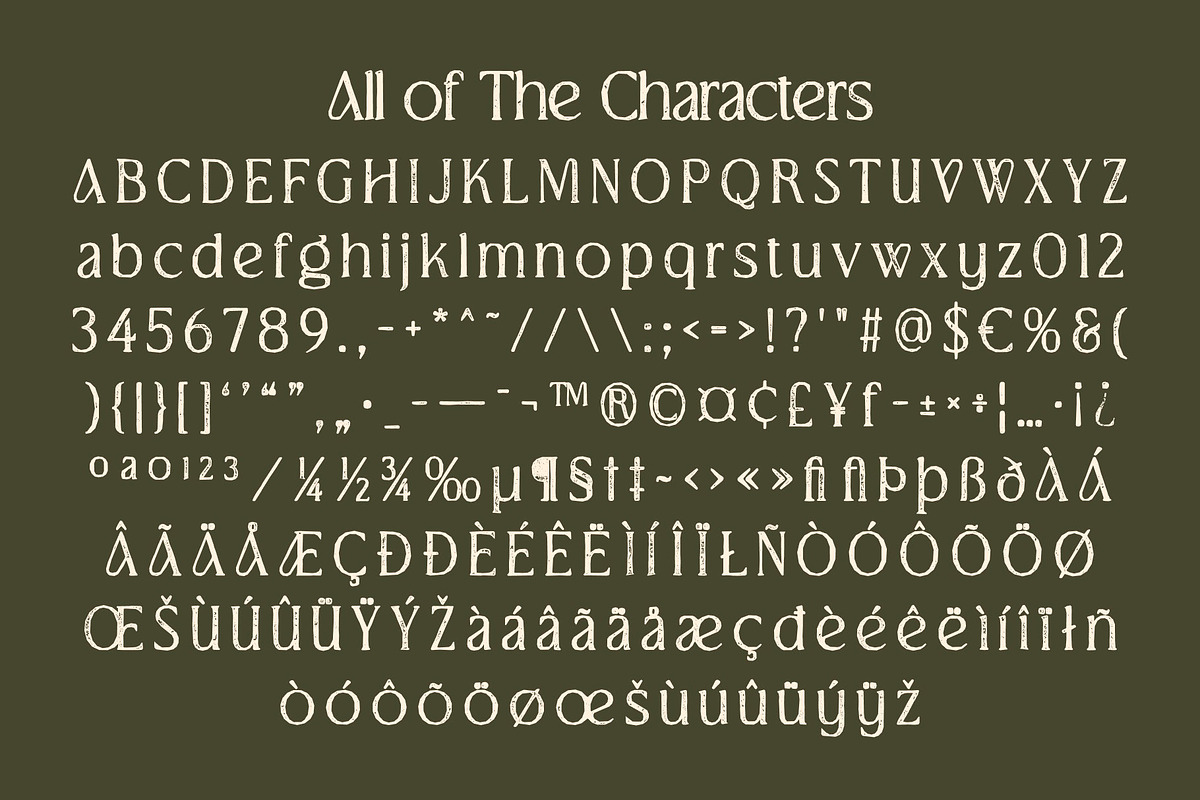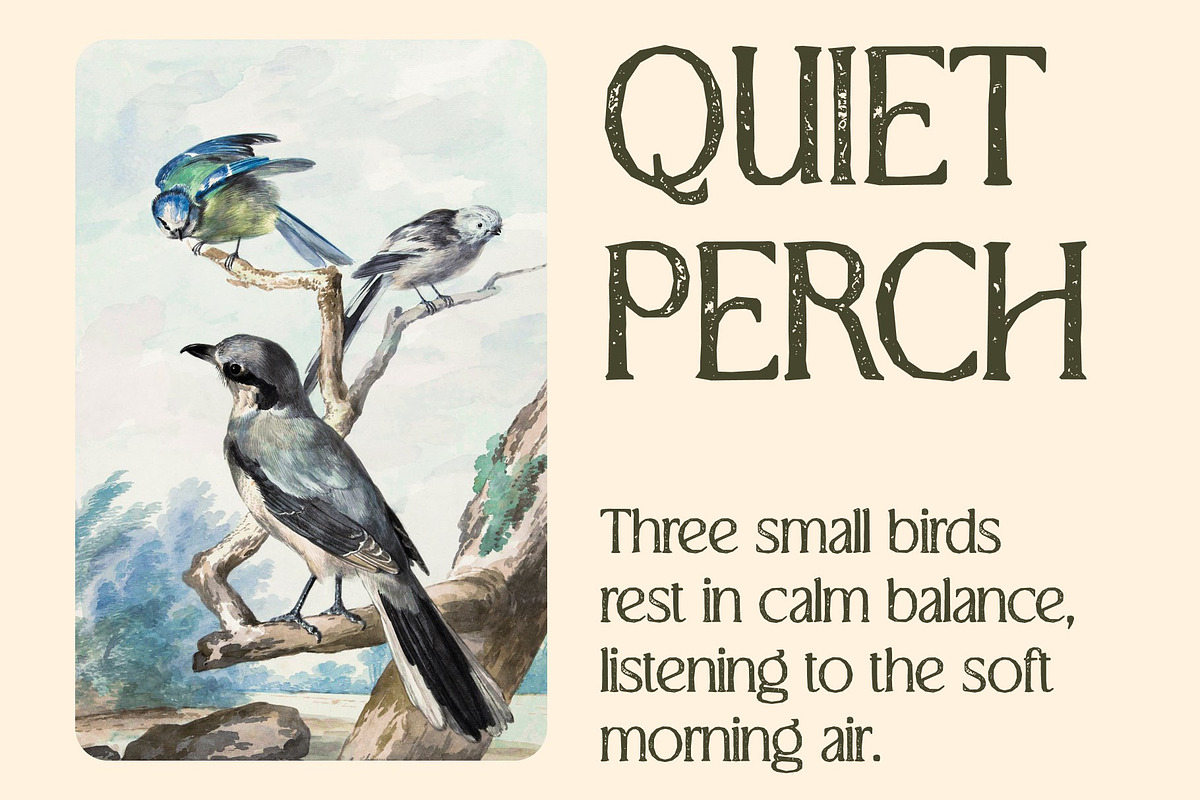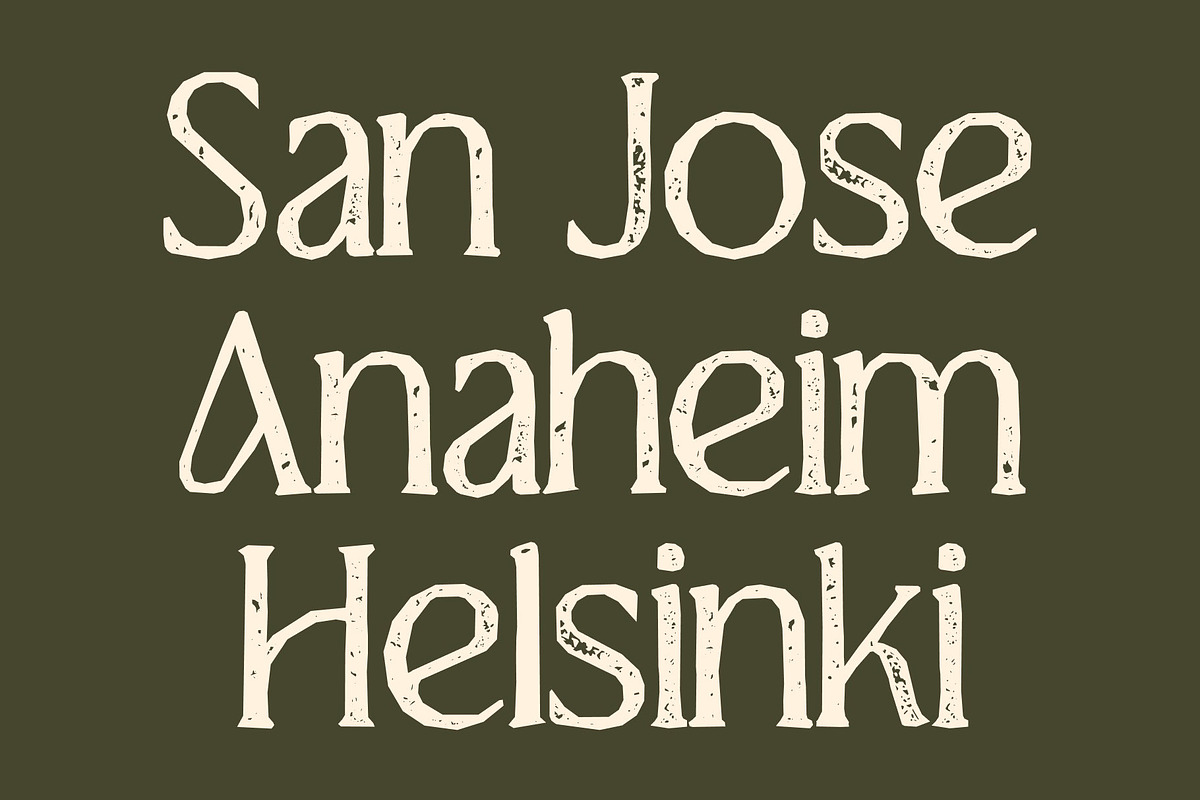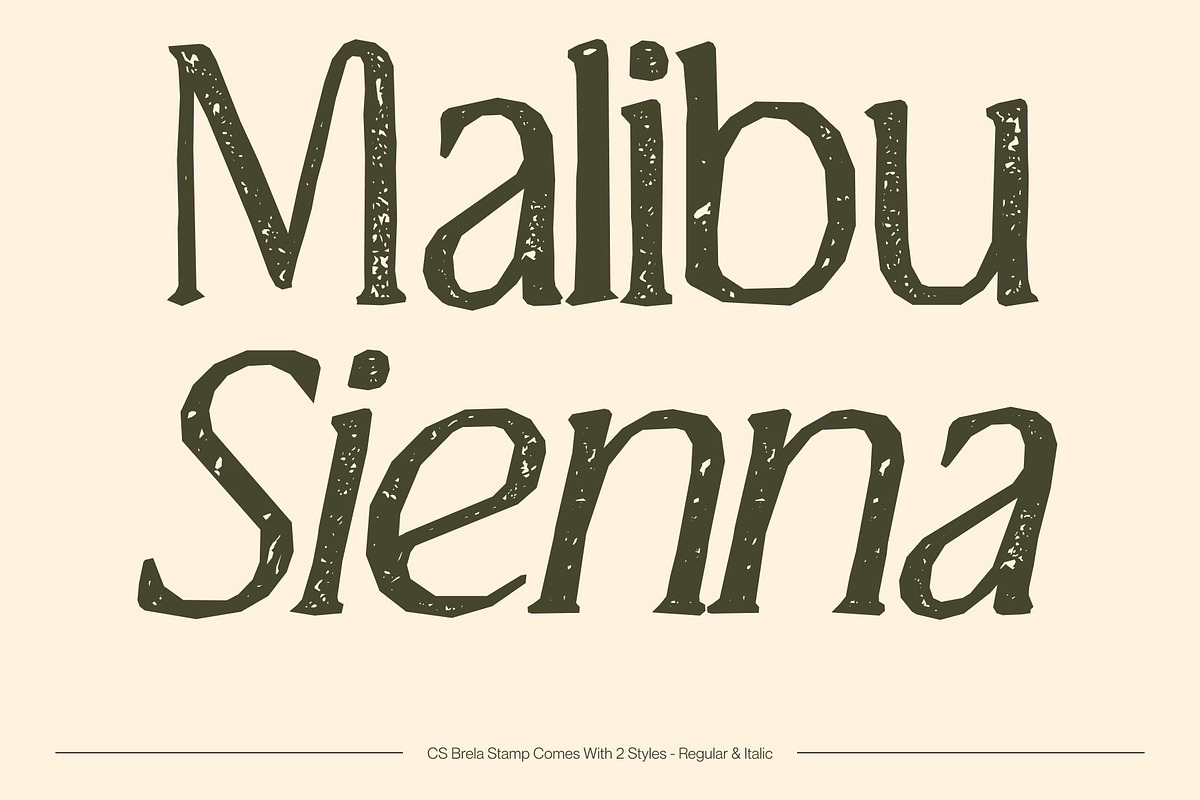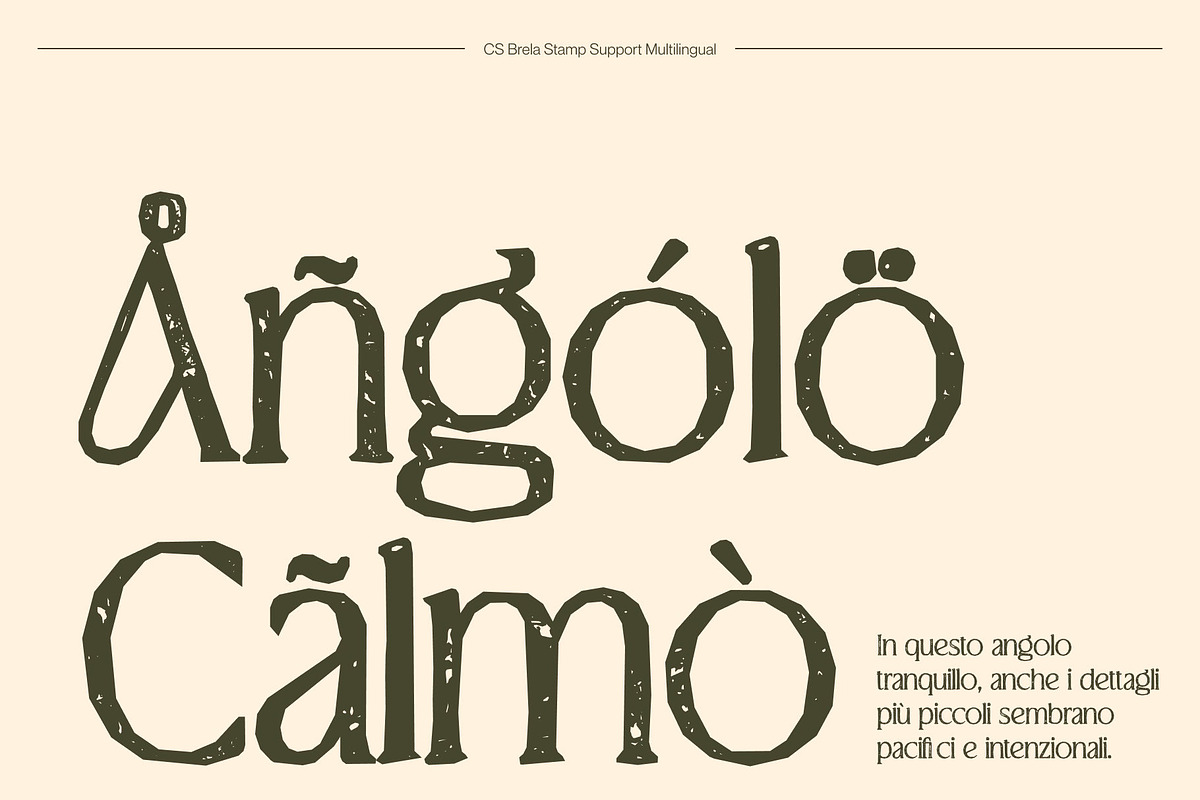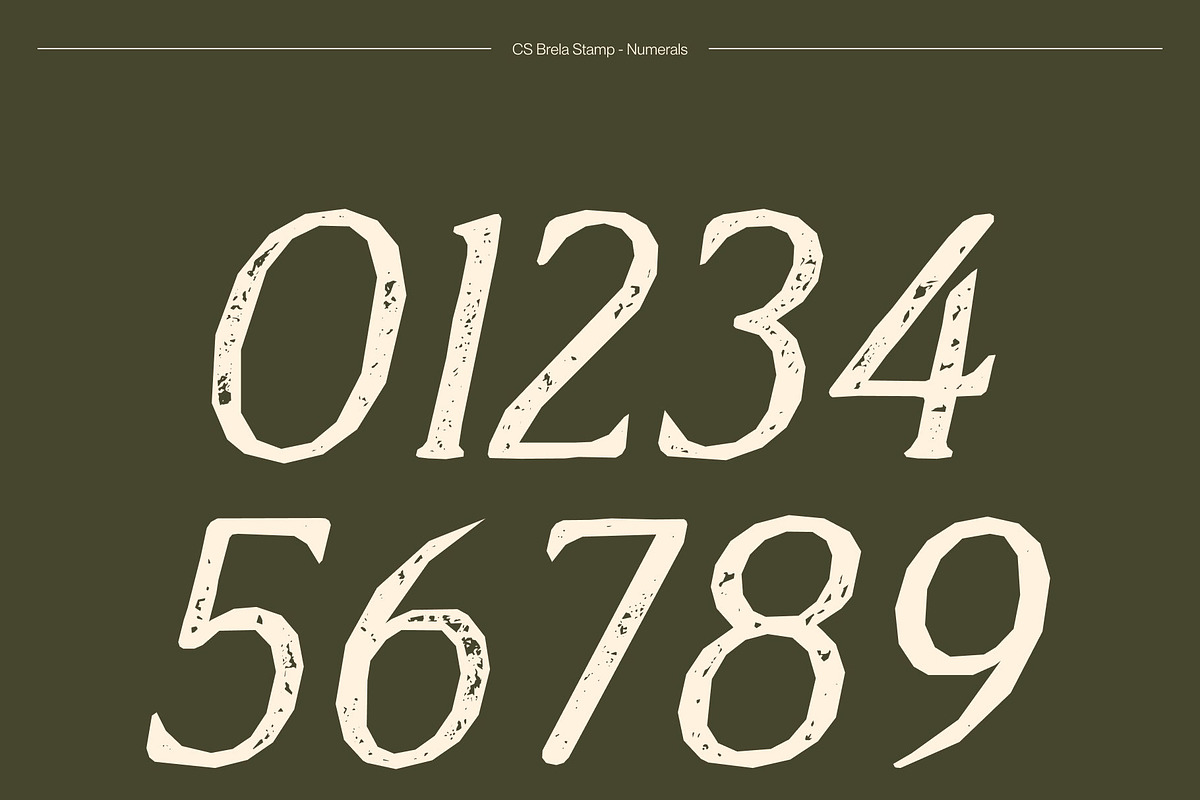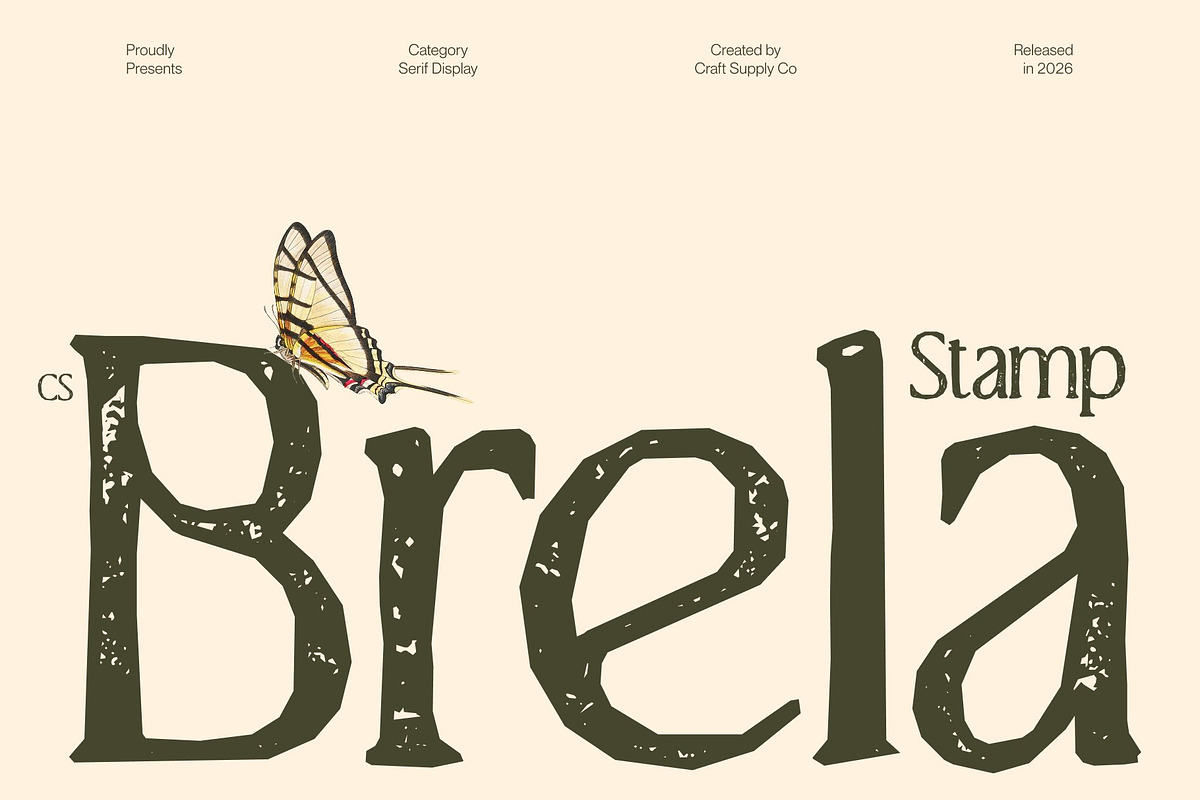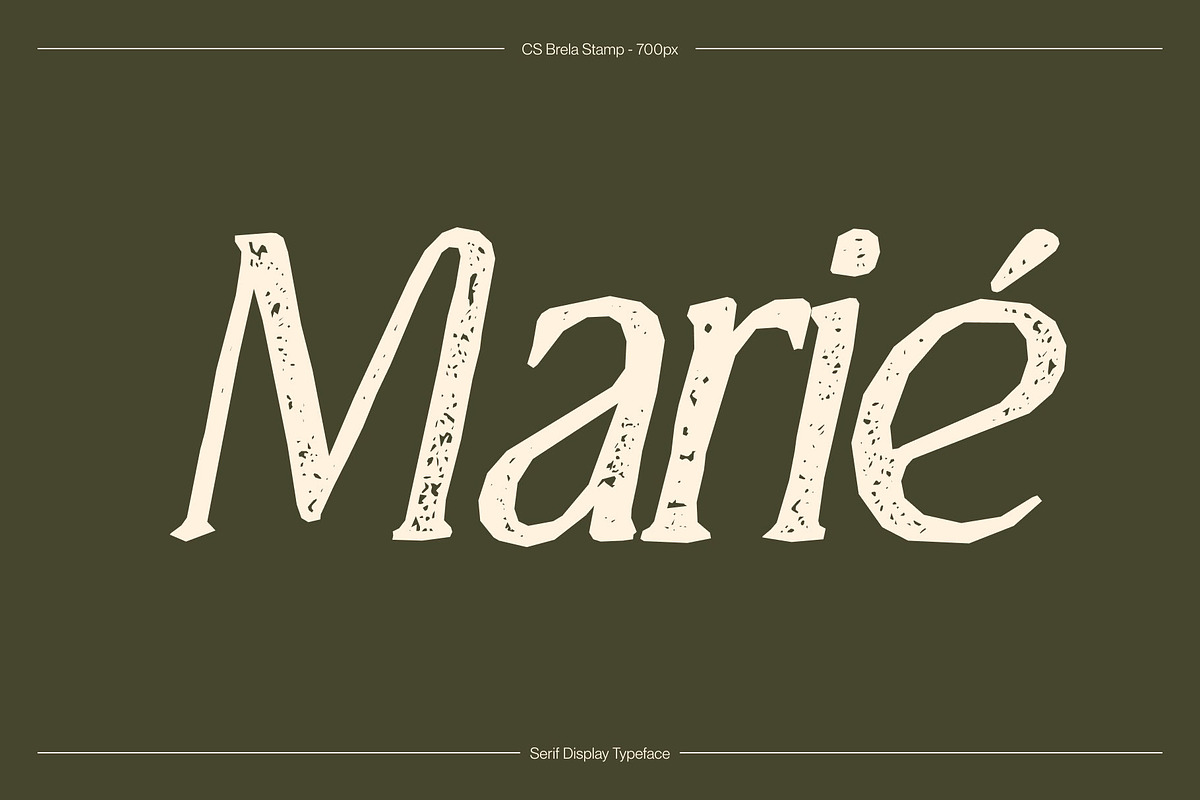
CS Brela Stamp
CS Brela Stamp – Elegant Serif with Textured Playful Sophistication
Refined Serif with a Stamped Warmth This elevates its elegant serif foundation with a subtle stamped texture that introduces depth and artisanal charm. The simple, well-balanced letterforms remain clear and highly legible, while gentle ink variations and softly distressed edges add a relaxed, handcrafted personality. This creates a serif that feels polished yet naturally approachable.
Playful Ligatures with Organic Character The signature playful ligatures become even more expressive with the stamped finish. These thoughtful connections add rhythm and movement to the typography, now enhanced by slight textural imperfections that make each composition feel lively and authentic. The result is stylish and creative without sacrificing clarity.
Simple Structure, Elevated Detail The strength of lies in its clean forms paired with refined serif accents. The stamped texture subtly softens its structure, giving it warmth while preserving its timeless elegance. This harmonious balance makes it easy to integrate into both minimalist and decorative layouts.
Perfect for Fashion and Luxury Expression Ideal for fashion branding, luxury packaging, editorial designs, social media visuals, logos, and posters, communicates elegance with a modern twist. Its blend of sophistication, playful detail, and textured depth helps brands express confidence, creativity, and tasteful charm across both print and digital media.